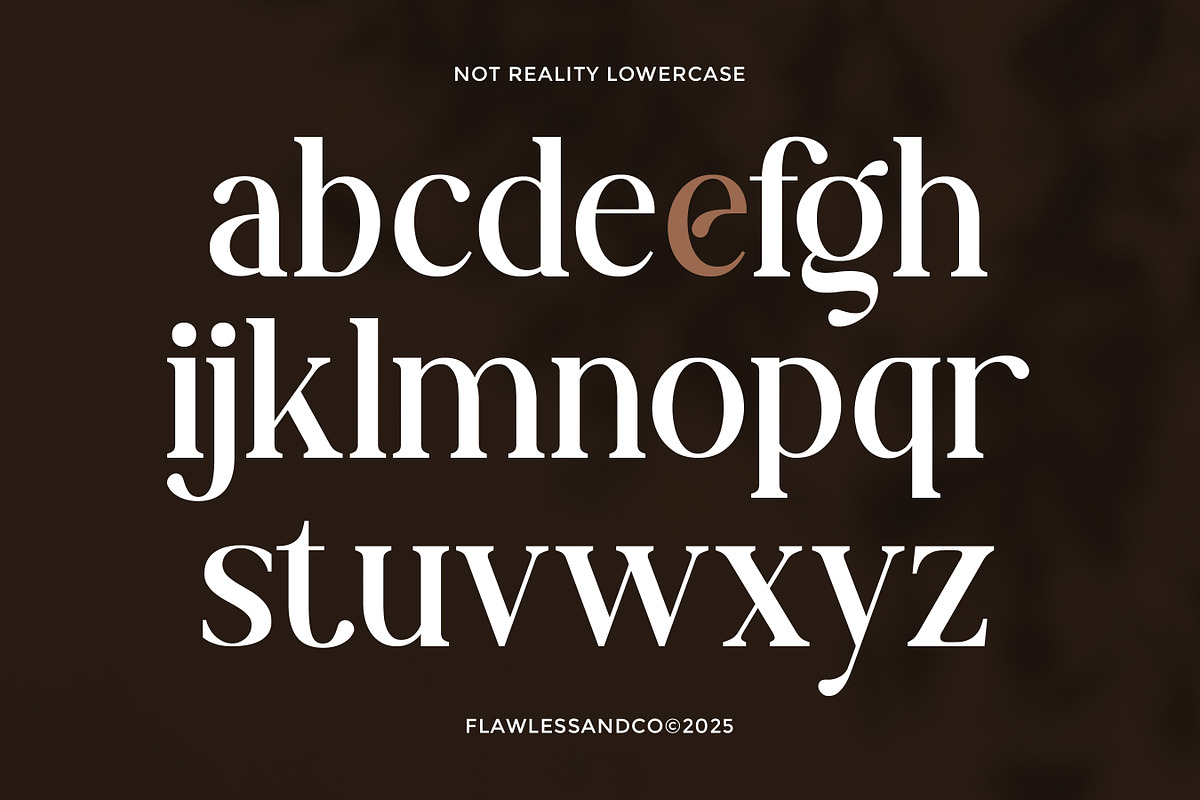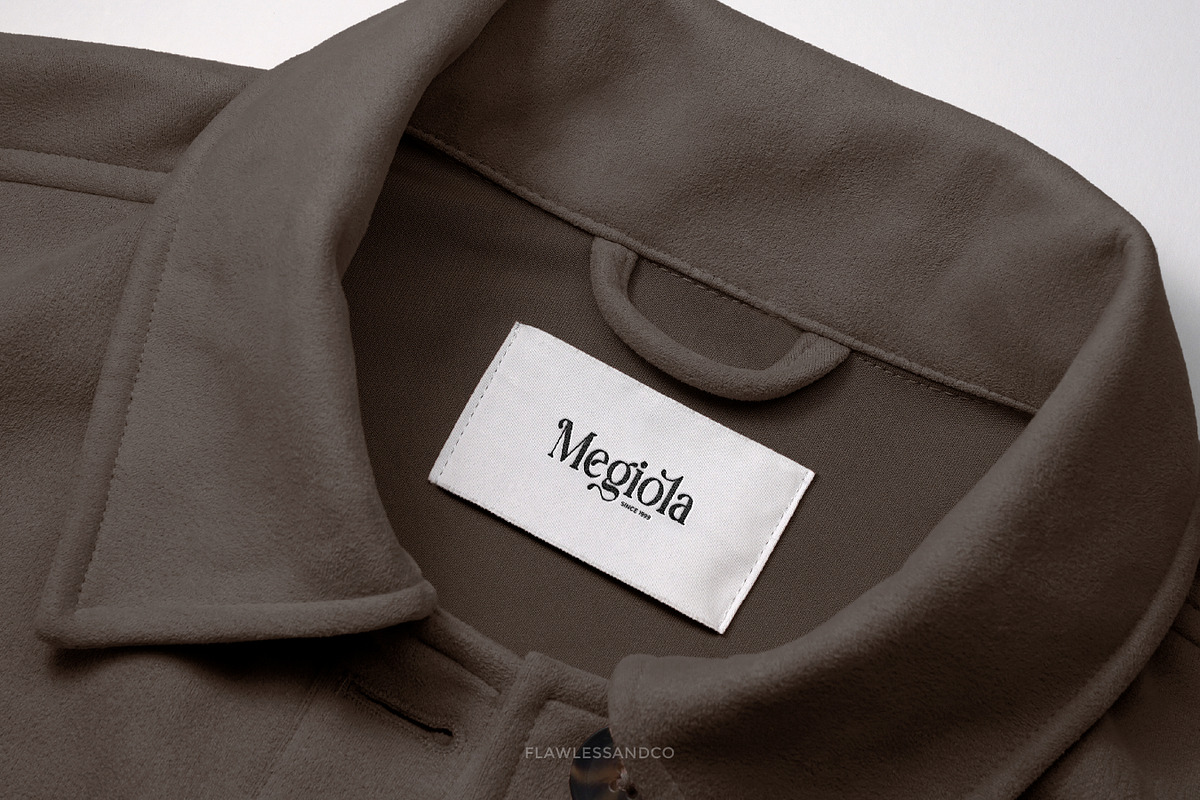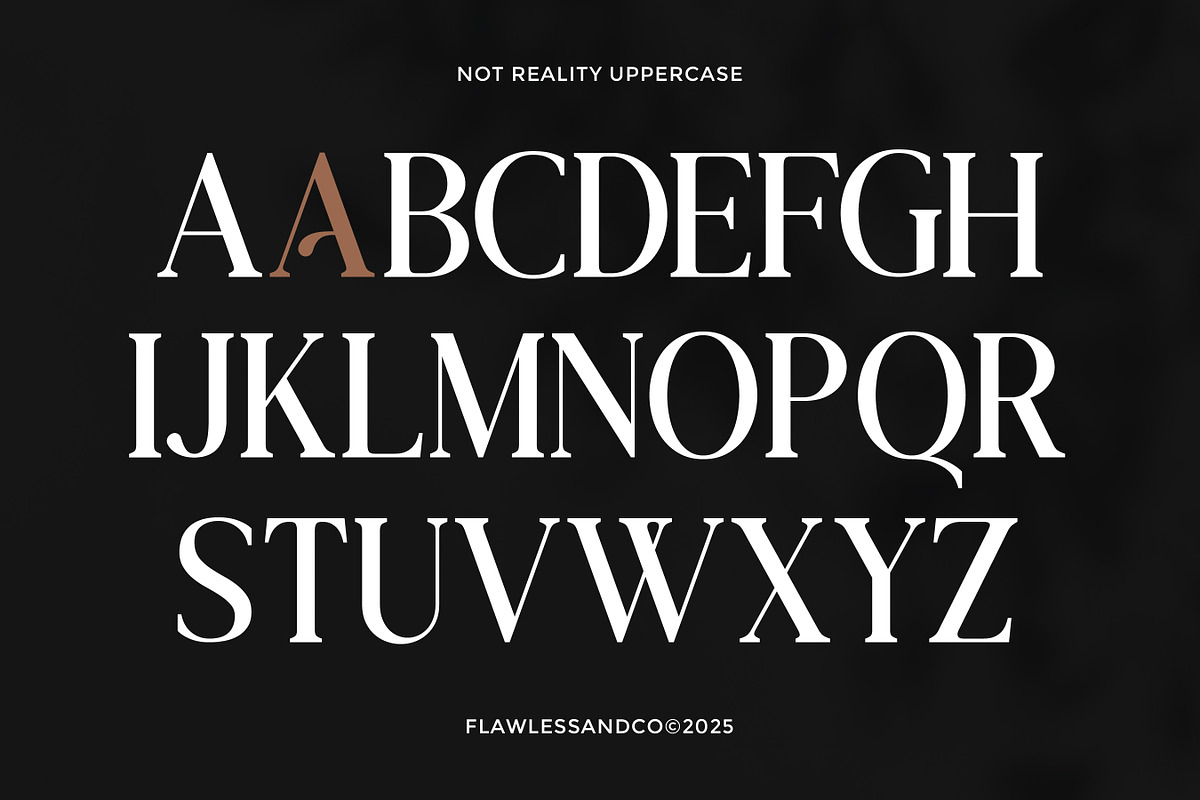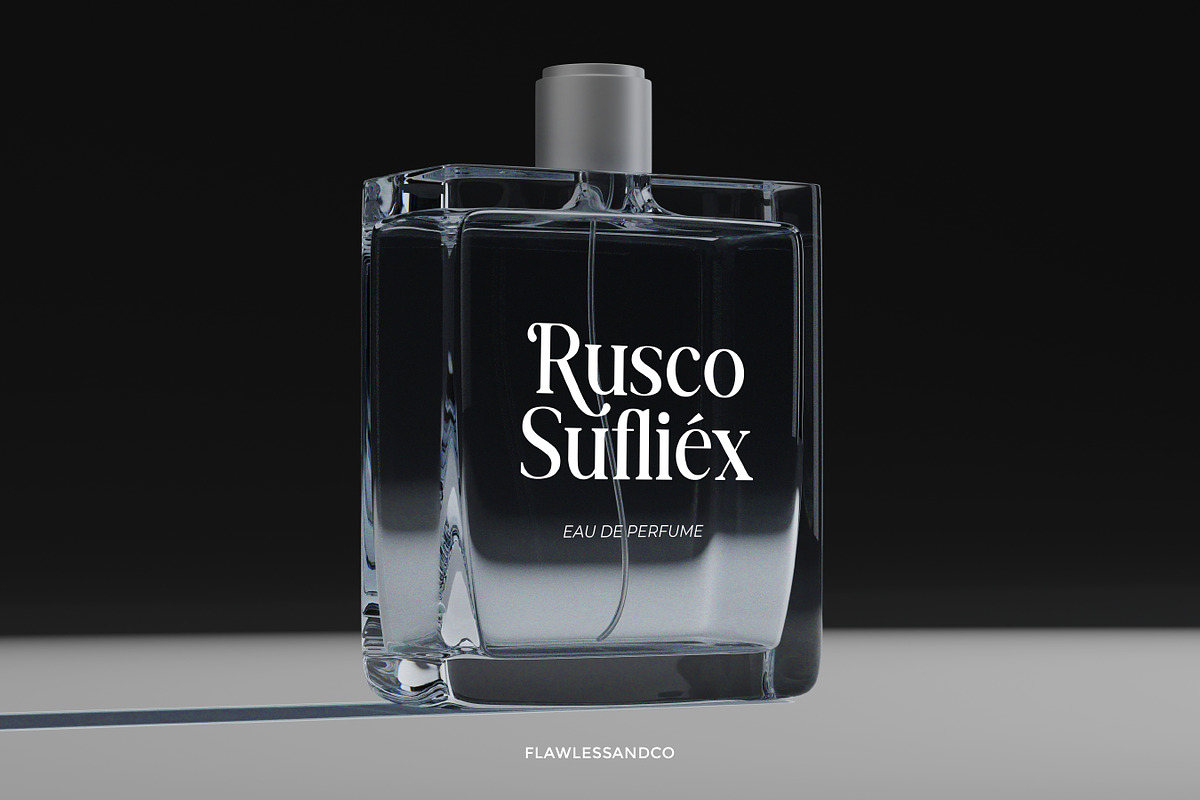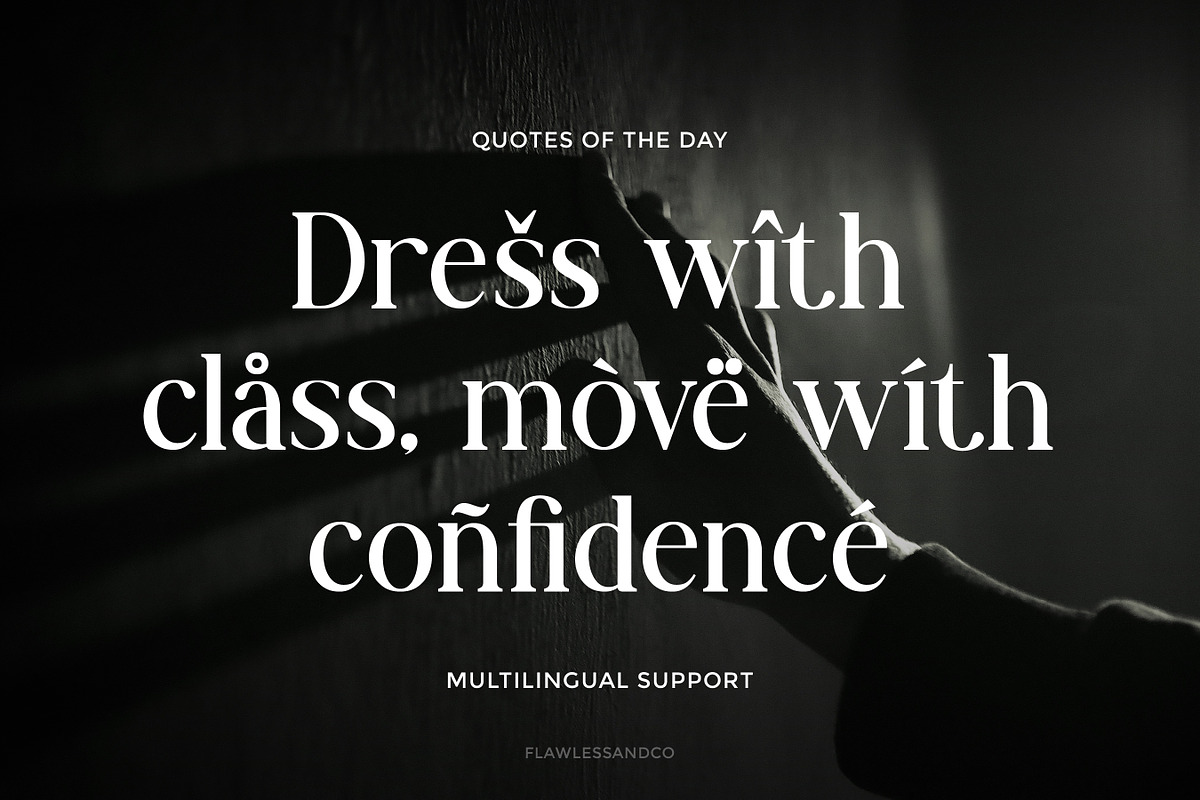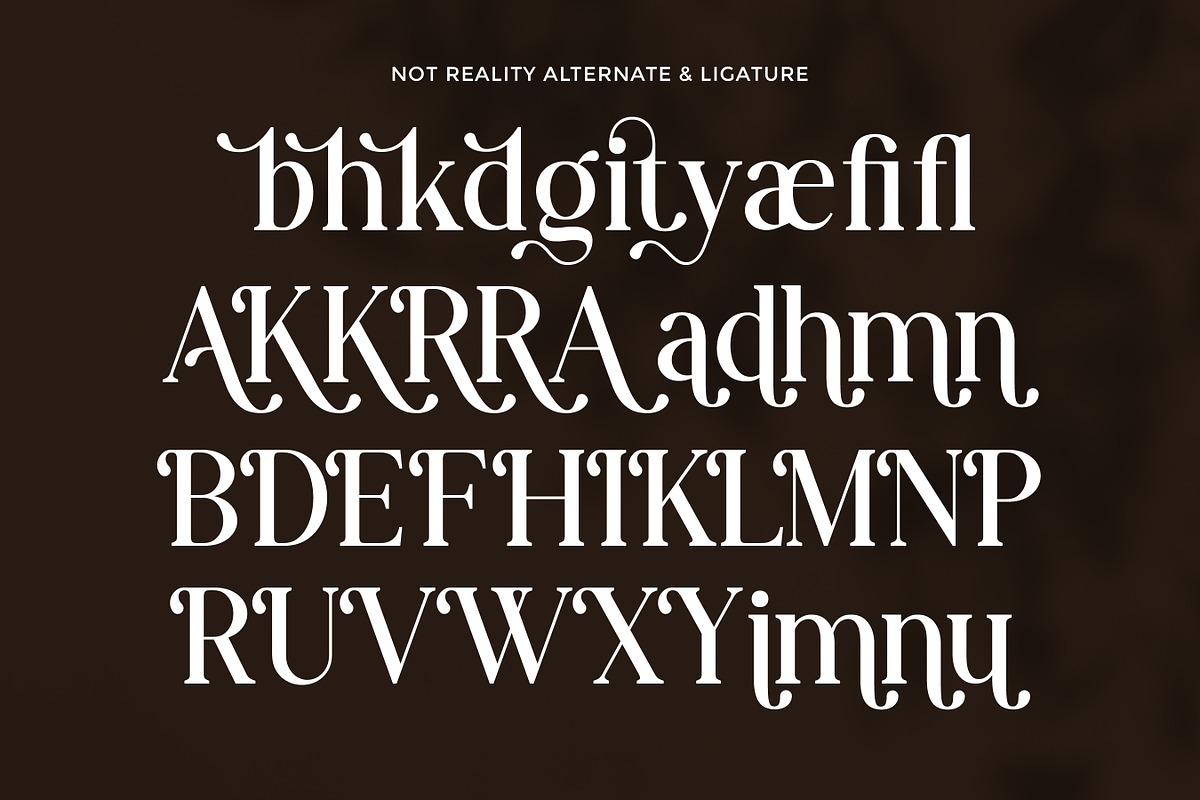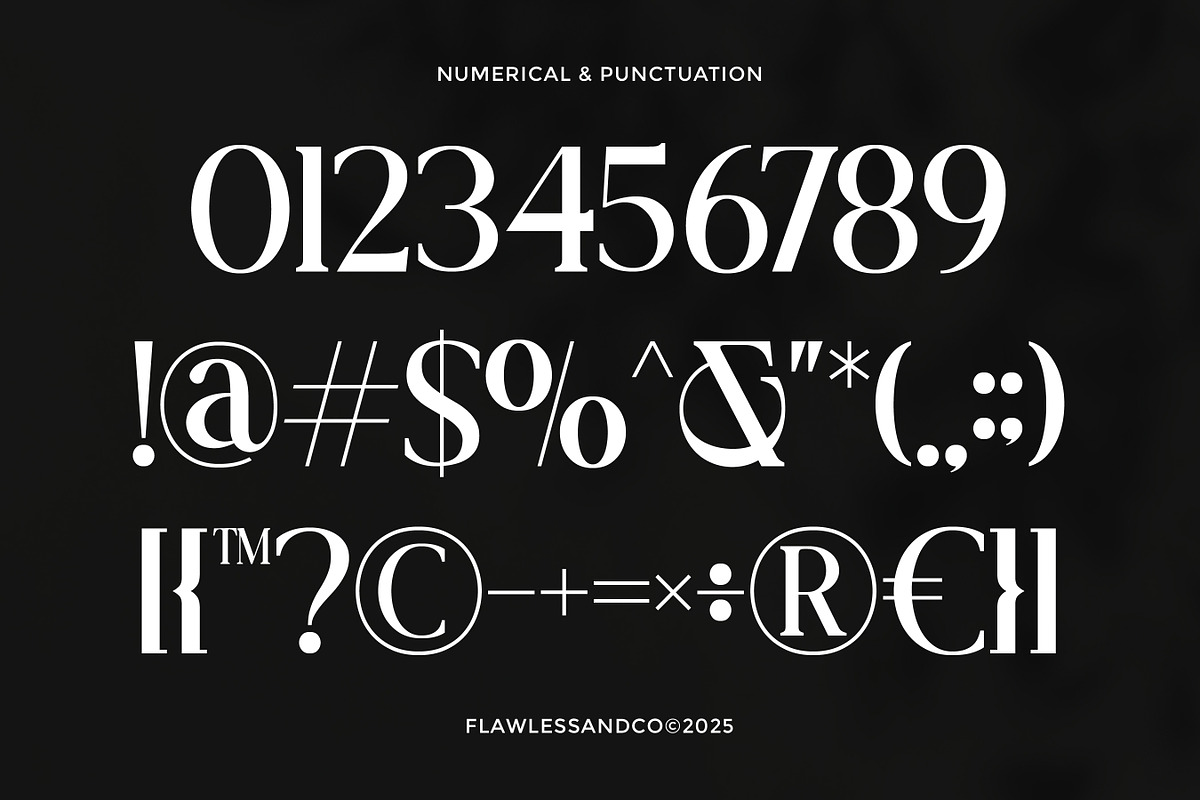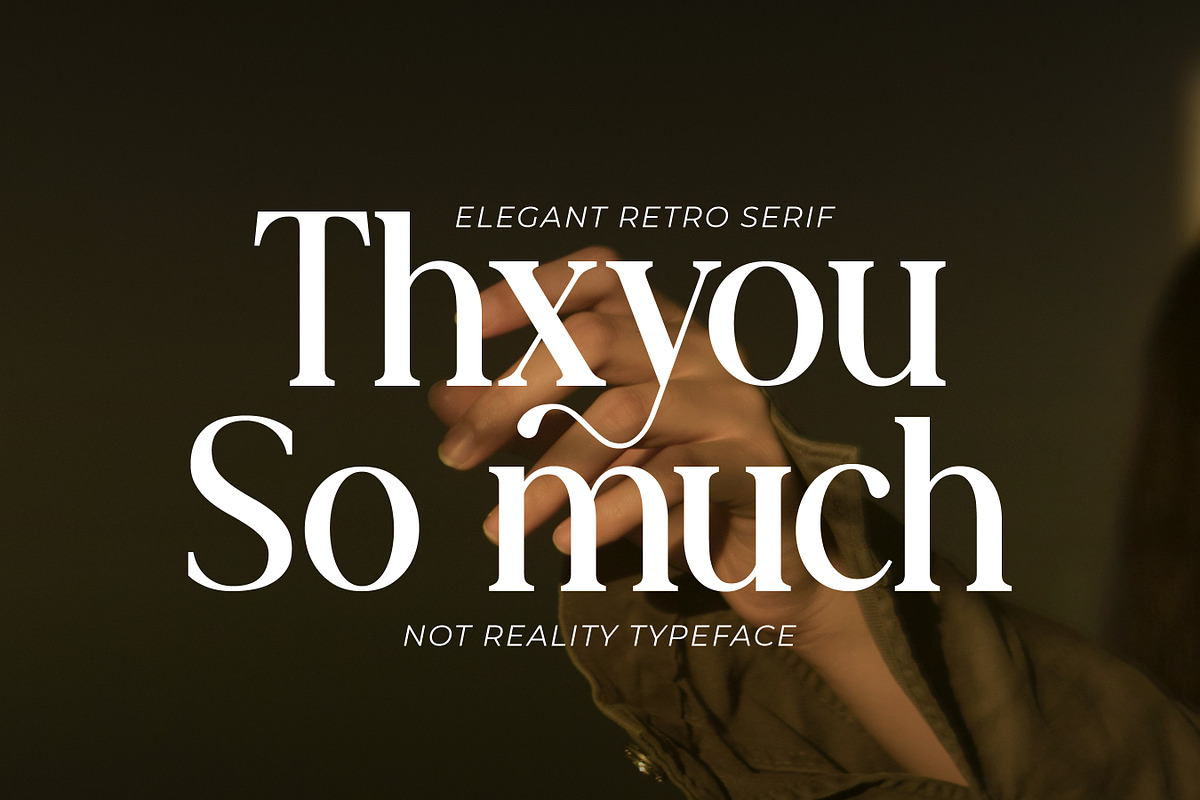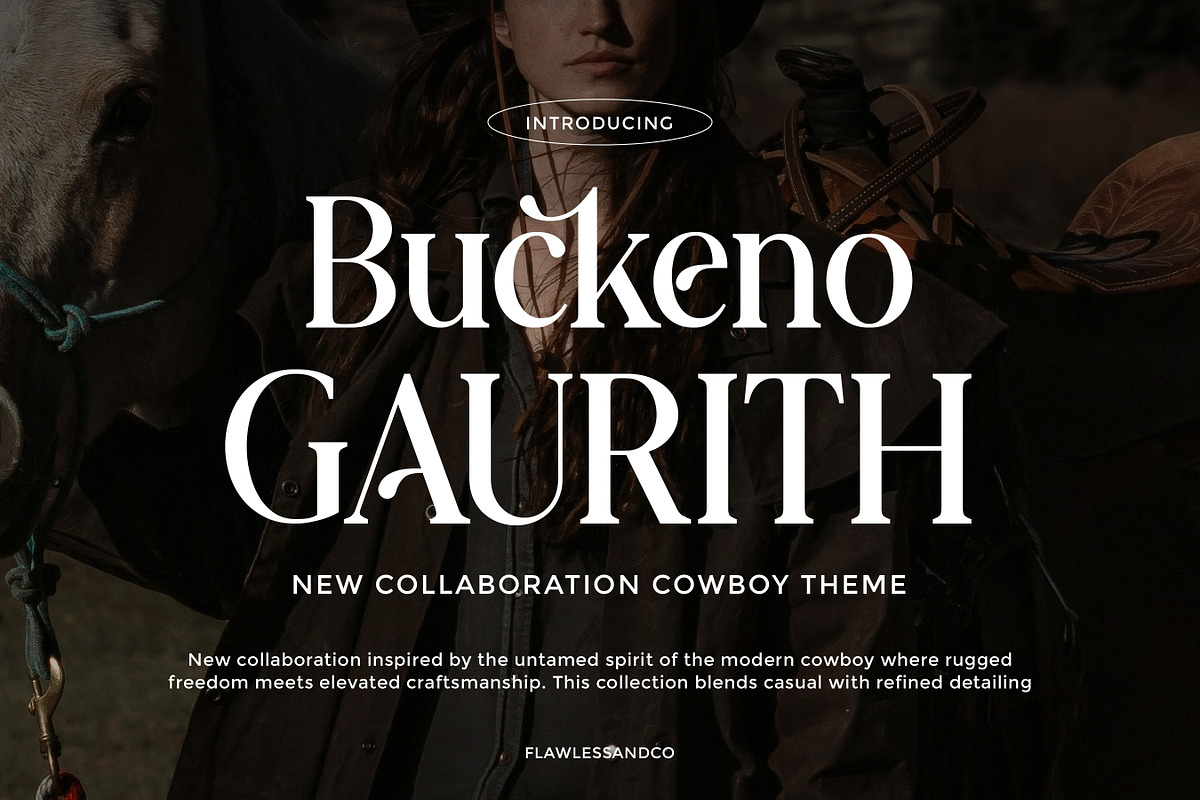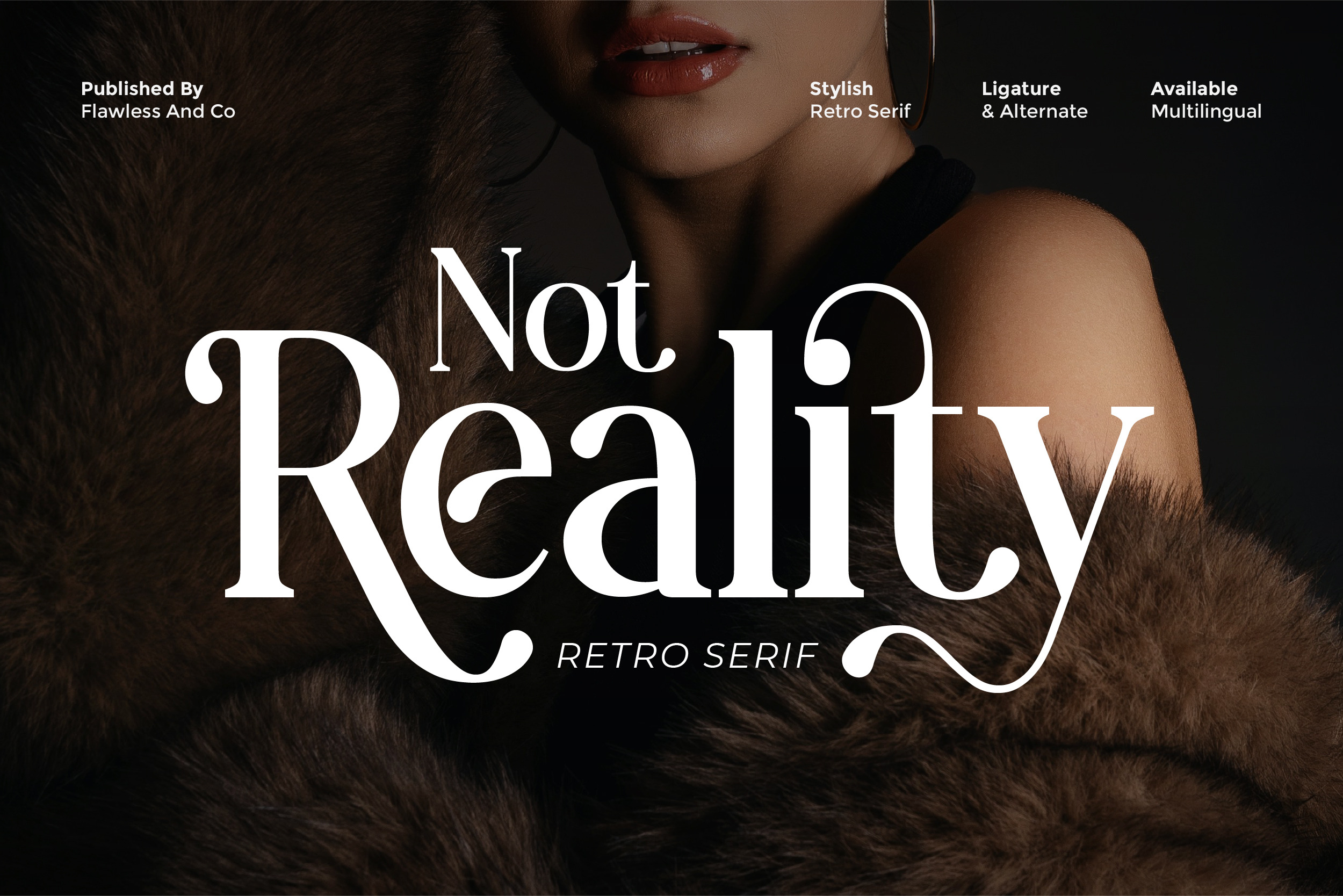
Not Reality - Retro Serif Font
Not Reality is a stylish retro serif font that blends timeless elegance with bold vintage character. Designed to deliver a strong yet refined impression, this font features classic serif details, smooth curves, and expressive letterforms that make every design feel nostalgic, luxurious, and memorable.
Who Should Use Not Reality?
- Brand and logo designers seeking a timeless yet distinctive style
- Creative studios working on fashion, beauty, or lifestyle brands
- Designers who want a retro serif font with modern versatility
- Anyone looking to create elegant and eye-catching typography
A Must-Have Font for Brand and Logo Creators and Designers
Not Reality is an essential choice for brand and logo creators who want to deliver a strong visual identity with a timeless retro feel. Its elegant serif structure and vintage character help logos appear distinctive, confident, and full of personality. Whether used for luxury branding or creative identity projects, Not Reality adds depth, charm, and lasting impact to any design.
Why Choose Not Reality for Brand and Logo Projects?
- Retro serif style with a luxurious and classy feel
- Duo font concept for flexible and harmonious typography
- Strong character that enhances brand identity
- Perfect balance between vintage charm and modern elegance
- Ideal for creating memorable and premium logos
Suitable For
- Logo design
- Branding & brand identity
- Fashion and beauty branding
- Editorial & magazine layouts
- Packaging design
- Posters & headlines
- Wedding invitations & luxury events
- Social media and marketing visuals